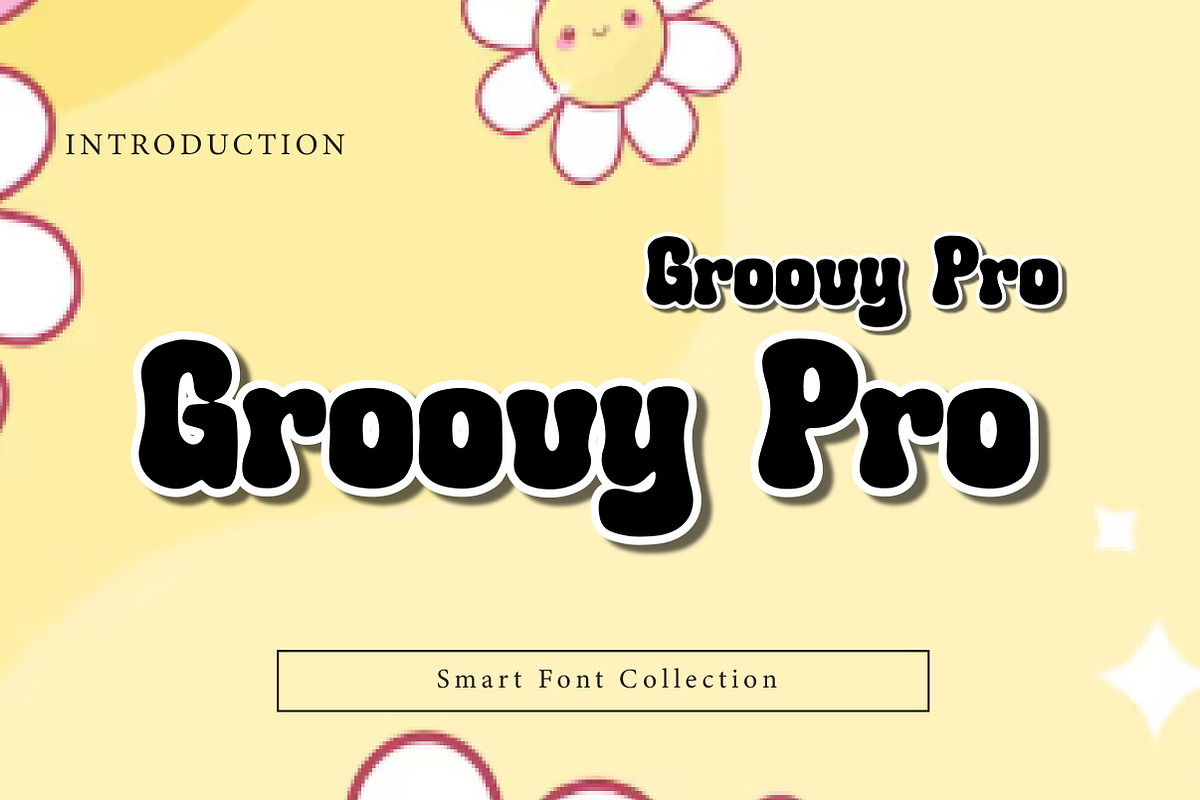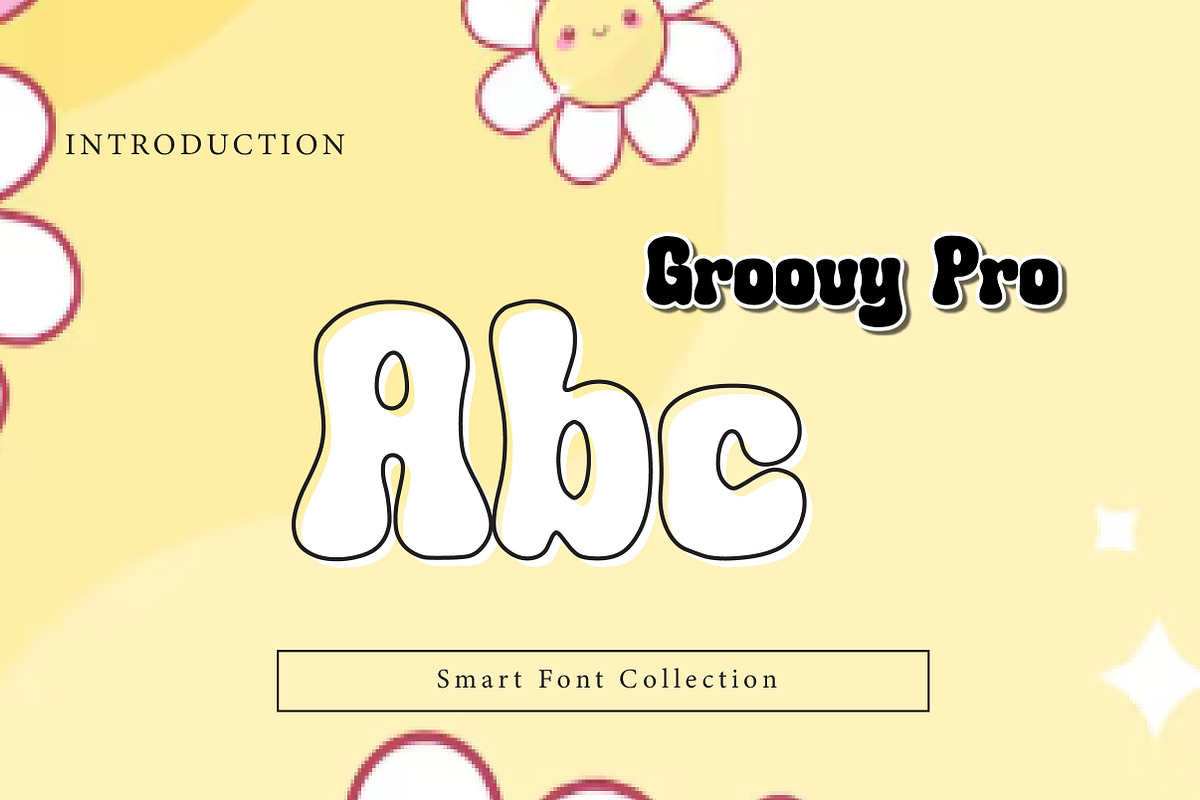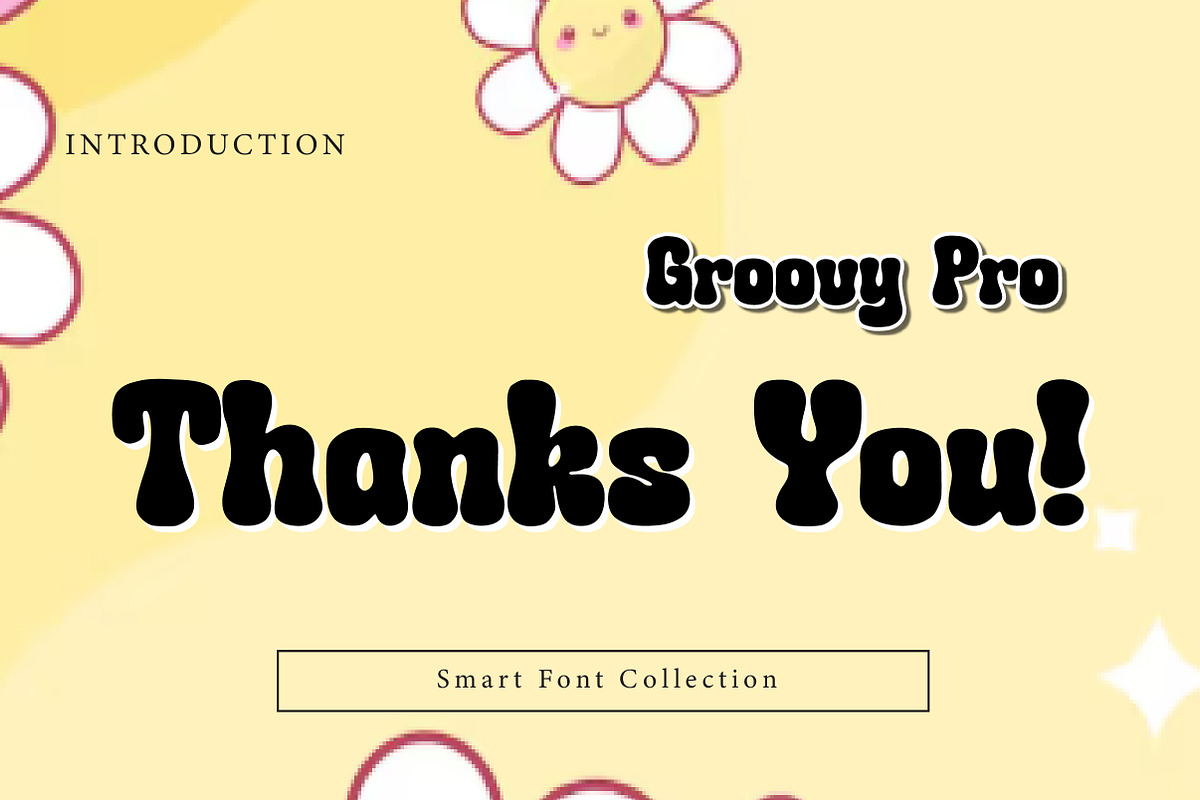
Groovy Pro
Groovy Pro is a bold, funky, and retro-inspired display font made to bring classic groovy vibes into modern design. With its thick, rounded letterforms and playful 70s-style personality, this typeface is perfect for creating eye-catching typography that feels fun, nostalgic, and full of energy.
Inspired by vintage psychedelic lettering and funky poster design, Groovy Pro works beautifully for logos, poster titles, social media graphics, product packaging, sticker designs, t-shirt prints, album covers, event flyers, and retro branding. Its chunky shapes and smooth curves make it highly readable while still delivering a strong decorative style.
Whether you’re designing a retro-themed brand identity, a groovy party poster, a fun product label, or colorful headline typography, Groovy Pro adds instant personality and a bold vintage feel. This font is best used in display sizes where the groovy style can shine and make your design stand out.